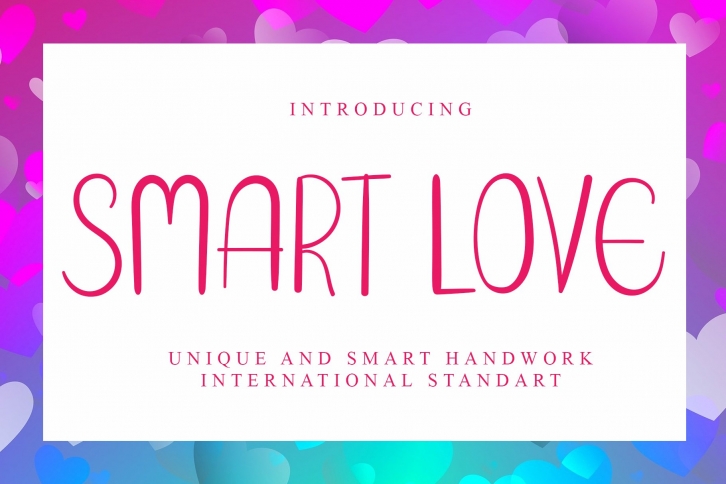
Smart Love is a great font that was designed by Giart Studios. Imagine the amount of combinations you can create using this font! The archive is 17.53 MB and it was released on February 13, 2022. Smart Love looks beautiful on wedding invitations, greeting cards, logos, posters, labels, t-shirt designs, logos, business cards and is perfect for use in ink or watercolor works, fashion, magazines, packaging and food menus, children's books and more!